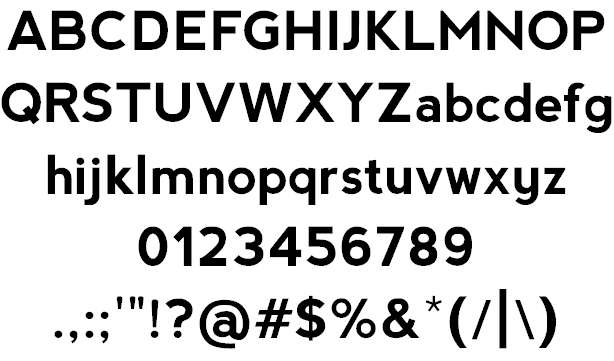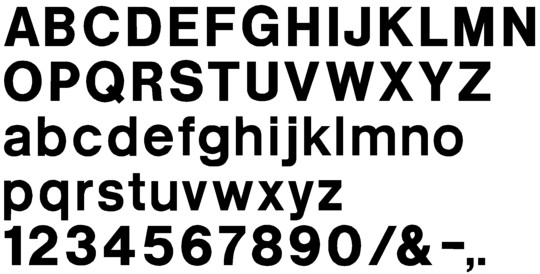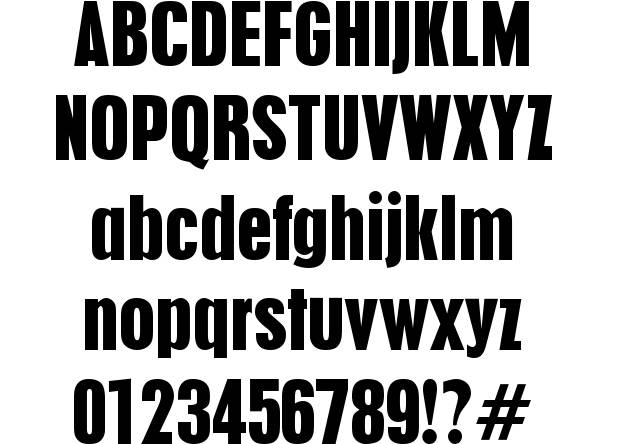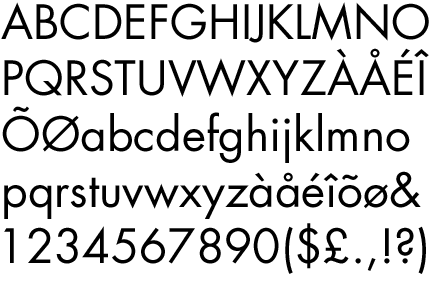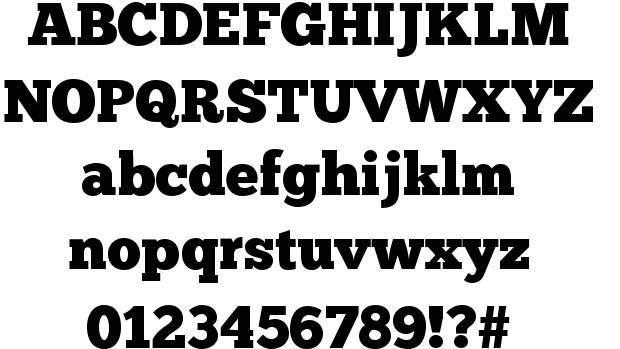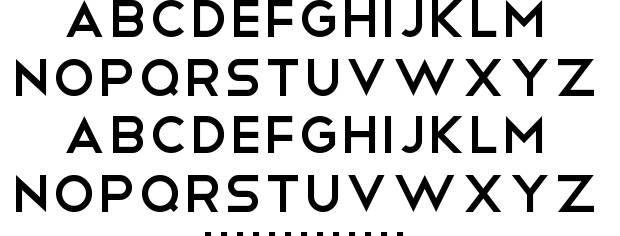
5 Time-Tested Tips for Finding a Fantastic Flyer Font
Flyers form part of any well-rounded print marketing campaign. But despite their ubiquity and simplicity, it can be a challenge getting them to stand out. Choosing the right flyer font can go a long way toward creating materials that don’t just stand out, but are immediately understandable as well.
There are a few questions you should ask yourself before you decide on a flyer font. Many of these questions are also applicable to posters and other single-sheet prints as well.
1.) What are the images on the design?
It helps to already have a layout or at least a general idea of what other visual elements will be included in your flyer design. This will help you avoid jarring incongruities that often plague amateur flyer designs. It helps to understand the “feel” and character of each font and flyer design before matching them.
2.) Is the font immediately legible?
You might think this is a no brainer, but some decidedly illegible typefaces such as Fraktur or Zapfino continually find their way into flyer designs. Illegible fonts are sometimes to be expected in some niches, but as a general rule, you want flyers for a marketing campaign to be immediately readable.
Another factor many designers fail to consider is that fonts that are easy to read on screen may not necessarily as easy to read in the real world, on a small print. Be sure to take the planned size of the flyer into account before sending your design in for printing.
3.) What mood are you setting?
While your images and copy will do much of the work, your flyer font will play a critical part in how your messages are received. Unless you’re specifically going for contrast, choose a font that appropriately complements everything else in the design in terms of “feel.” Be sure the typefaces you choose help deliver the feel that your images and copy are going for.
4.) Is the font brand-appropriate?
This goes beyond feel or what message you want the flyer to communicate at the time. As with the copy and images you use, your brand’s overarching goals are normally far more important than the specific message a flyer communicates in one campaign. Imagine if a brand like Apple or Samsung used a font like Comic Sans or MT Curlz publicly without any specific intent — their brands could be somewhat damaged. If you know what your brand is about, your choice of flyer font will be more appropriate.
Here are a few flyer fonts to try:
Nevis
Helvetica
Pilsen Plakat
Futura
Chunk Five
Telegrafico
Mono Alphabet
Cooper Black
While we mentioned a few guidelines and shared relatively safe flyer fonts, don’t think that you can’t take a few risks here and there. In design, you can start bending the rules when you already know what they are. Don’t be afraid to let your imagination run free if you feel that the brand can use it.